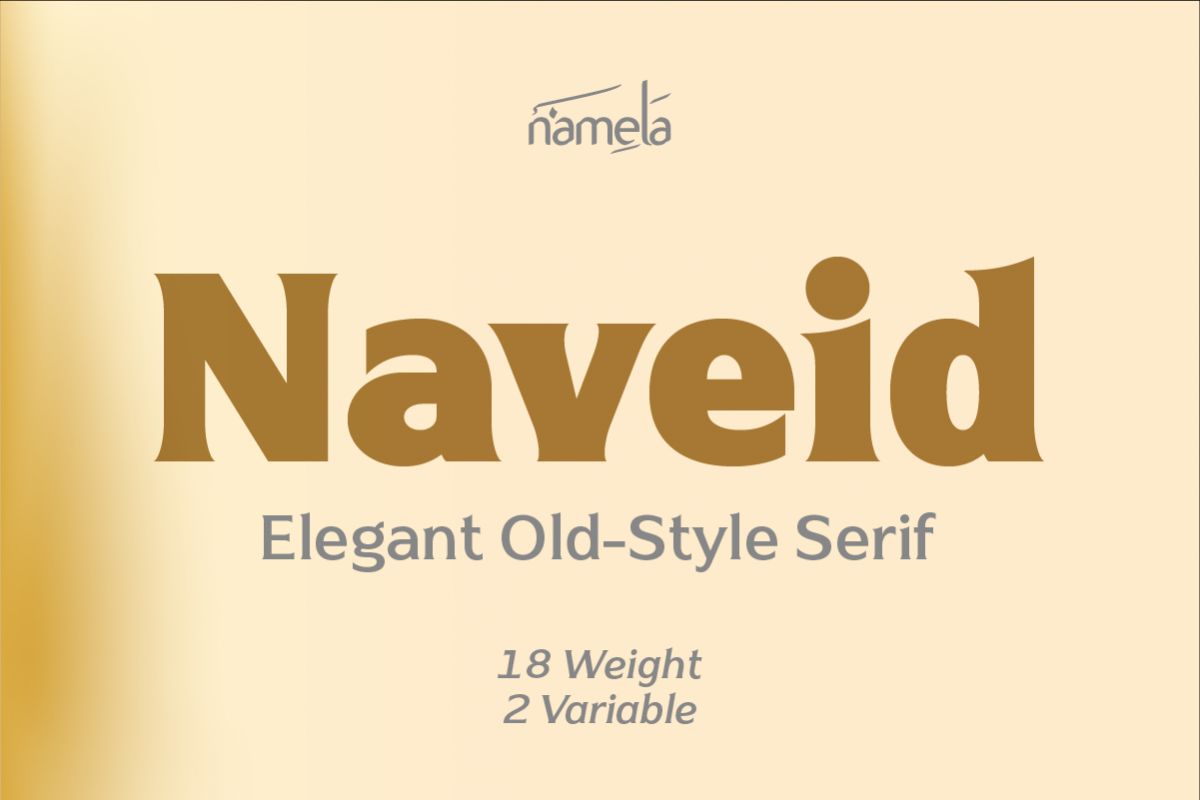
Naveid Bold
Naveid Font - An Elegant Old-Style Serif Typeface for Editorial & ePub Not every serif typeface earns the word elegant—Naveid does. This old-style serif display font offers a refined, contemporary interpretation of a centuries-old tradition: low contrast, generous x-height, and sharp pointed terminals that give each letterform a quiet authority. Designed for editorial design, ePub, and premium branding, Naveid delivers typography that communicates prestige effortlessly.